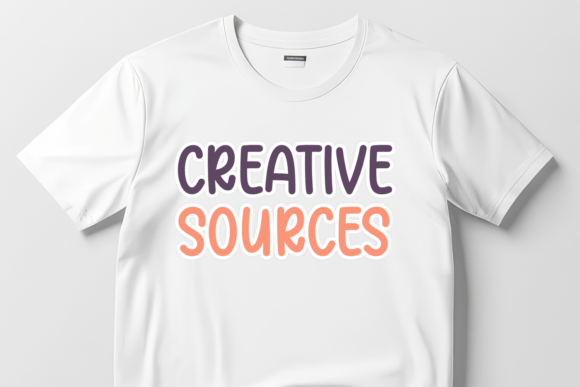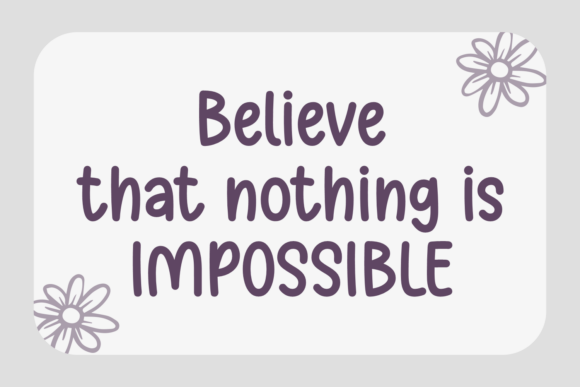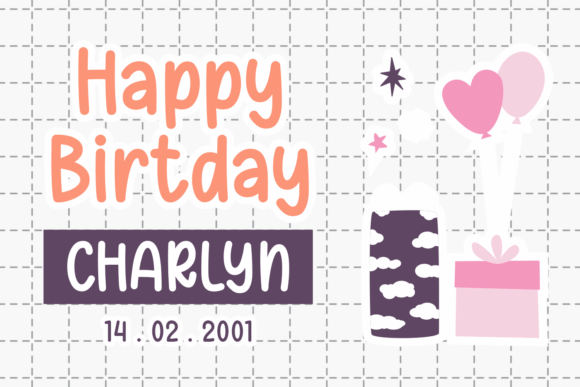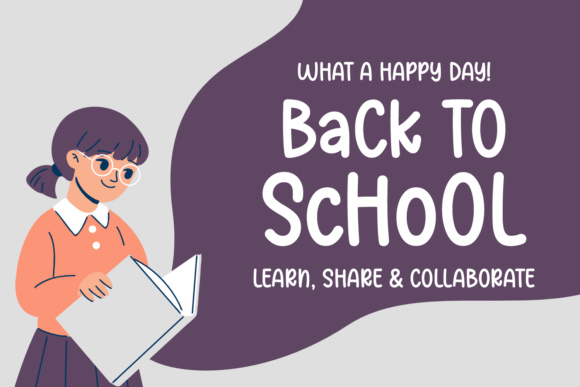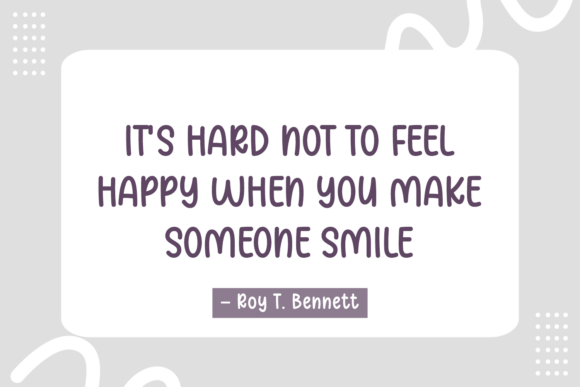
Introducing Always Practice: The Playful Handwritten Font for Friendly Designs
Are you tired of using the same old fonts for your designs? Do you want to add a personal touch to your text and make it stand out? Look no further than Always Practice, a cheerful and playful handwritten font that’s perfect for creating friendly and approachable designs. In this article, we’ll dive into the world of Always Practice and explore its features, benefits, and uses.
The Charm of Always Practice
Always Practice is a handwritten font that exudes a sense of fun and casualness. Its relaxed style makes it ideal for designs that require a friendly and approachable tone. Whether you’re creating invitations, quotes, or any other project that needs a personal touch, Always Practice is the perfect choice. The font’s natural, free-flowing look makes your words feel warm and inviting, perfect for connecting with your audience.
Key Features of Always Practice
- Playful and Handwritten: Always Practice is a handwritten font that adds a touch of personality to your text. Its playful style makes it perfect for designs that require a friendly and approachable tone.
- Natural and Free-Flowing: The font’s natural, free-flowing look makes your words feel warm and inviting. This feature is perfect for creating designs that require a personal touch.
- Cheerful and Relaxed: Always Practice has a cheerful and relaxed style that makes it perfect for designs that require a friendly and approachable tone.
- Perfect for Invitations and Quotes: The font’s playful and handwritten style makes it perfect for invitations, quotes, and any other project that needs a friendly feel.
Benefits of Using Always Practice
So, why should you use Always Practice for your designs? Here are just a few benefits of using this playful handwritten font:
- Adds a Personal Touch: Always Practice adds a personal touch to your text, making it feel warm and inviting.
- Perfect for Friendly Designs: The font’s friendly and approachable style makes it perfect for designs that require a casual tone.
- Versatile: Always Practice can be used for a variety of designs, from invitations and quotes to blog posts and social media graphics.
- Easy to Read: The font’s clear and legible style makes it easy to read, even at small sizes.
Uses of Always Practice
So, what can you use Always Practice for? Here are just a few ideas to get you started:
- Invitations: Use Always Practice to create playful and inviting invitations for parties, weddings, and other special events.
- Quotes: Add a personal touch to your quotes with Always Practice. The font’s playful style makes it perfect for inspirational quotes and sayings.
- Blog Posts: Use Always Practice to add a friendly and approachable tone to your blog posts.
- Social Media Graphics: The font’s clear and legible style makes it perfect for social media graphics, such as Facebook posts and Instagram captions.
Tips for Using Always Practice
Here are a few tips for using Always Practice effectively:
- Use it for Headings: Always Practice is perfect for headings and titles. Use it to add a playful touch to your text.
- Pair it with Other Fonts: Always Practice pairs well with other fonts, such as sans-serif fonts and serif fonts. Experiment with different font combinations to find the perfect look for your design.
- Use it in Large Sizes: Always Practice looks great in large sizes. Use it for headings and titles to add a playful touch to your design.
In conclusion, Always Practice is a playful handwritten font that’s perfect for adding a friendly and approachable tone to your designs. Its natural, free-flowing look makes your words feel warm and inviting, perfect for connecting with your audience. With its versatility, ease of use, and range of applications, Always Practice is a must-have font for designers and crafters. So why not give it a try and see how it can elevate your designs?